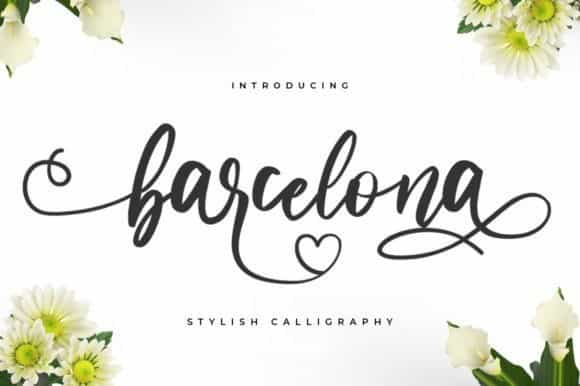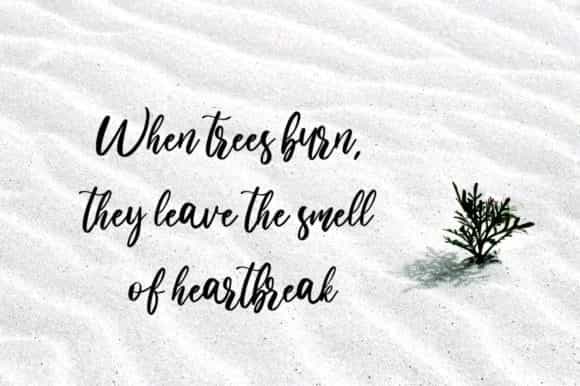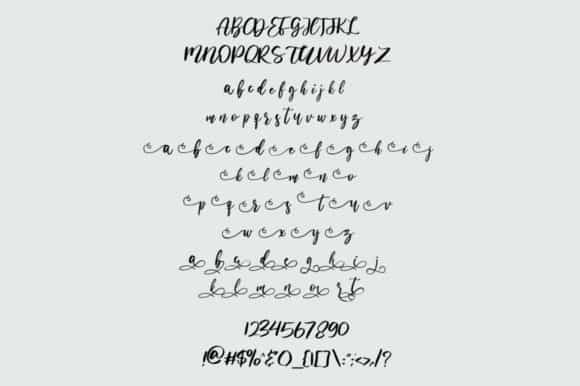
Barcelona is a calligraphy script font with plenty of alternates! This font works well for farmhouse themed designs, country style decor, branding materials, logos, t shirt graphics svg designs wall art pieces quotes, social media posts and more!